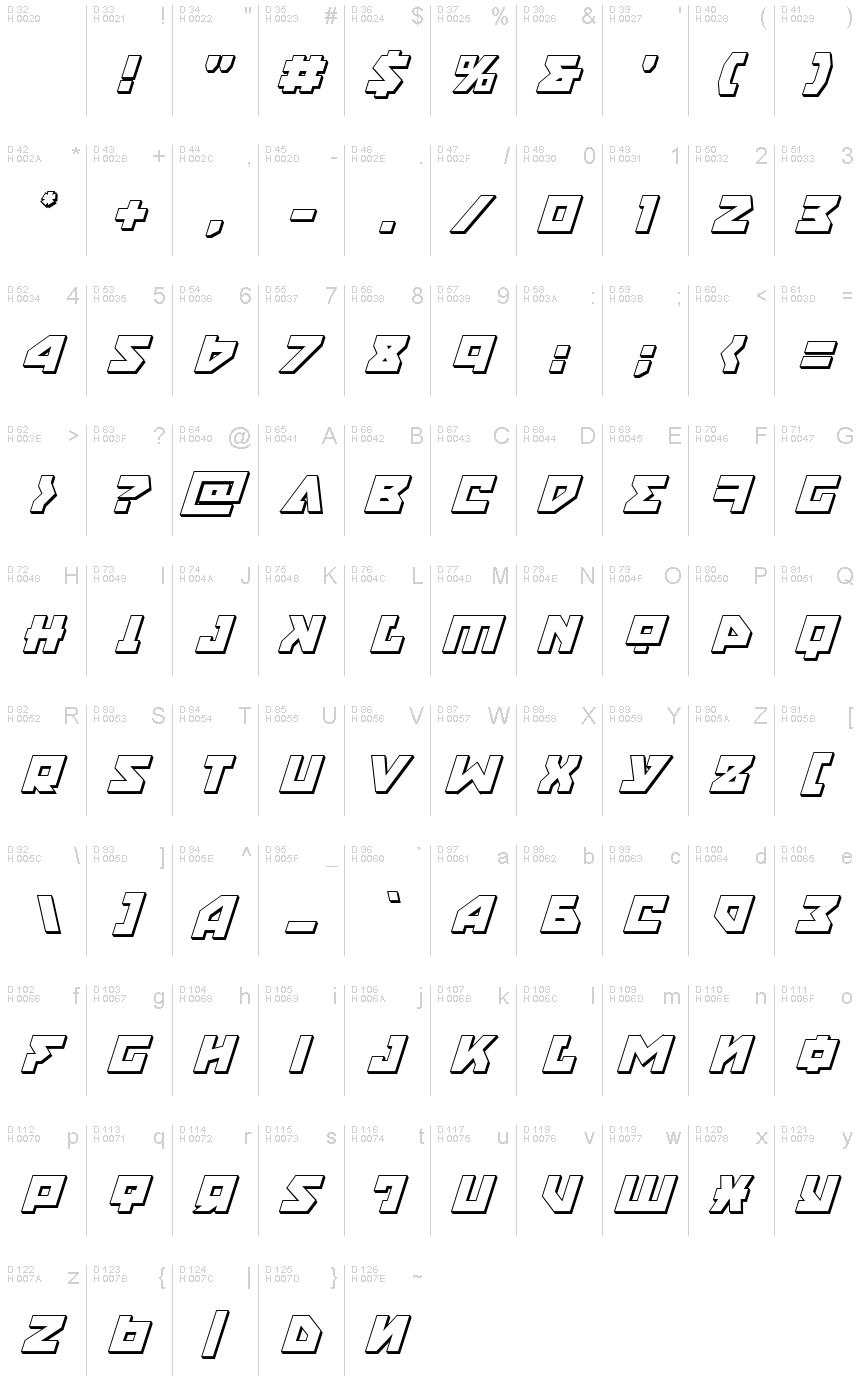
Nyet 3D Italic, a bold and striking display font, commands attention with its dynamic, faux-Russian aesthetic. Designed by Daniel Zadorozny, this expanded typeface exudes a sense of energy and movement, thanks to its three-dimensional, italic styling.
The heavy, bold weight and distinctive letter forms lend an impactful, almost industrial character, making Nyet 3D Italic a versatile choice for eye-catching headlines, logos, and branding applications.
Its unique personality would shine in a variety of creative contexts, from retro-futuristic design to gritty urban settings, seamlessly blending retro charm and modern flair.